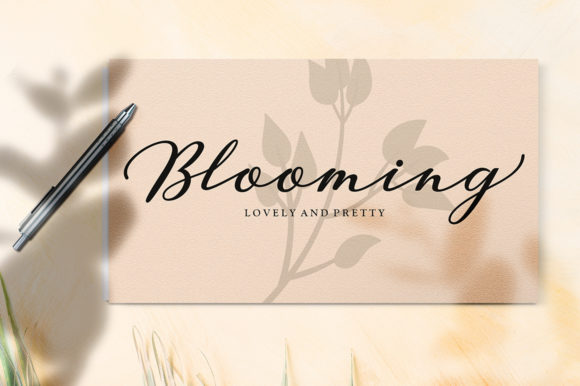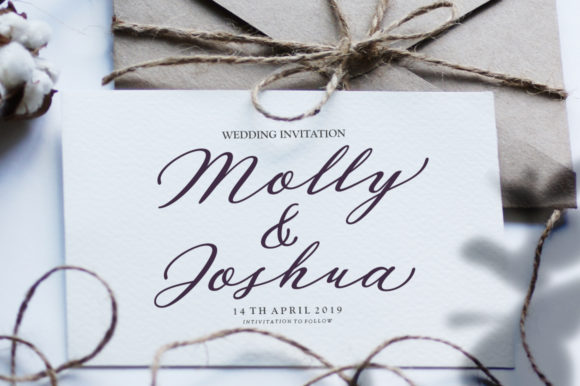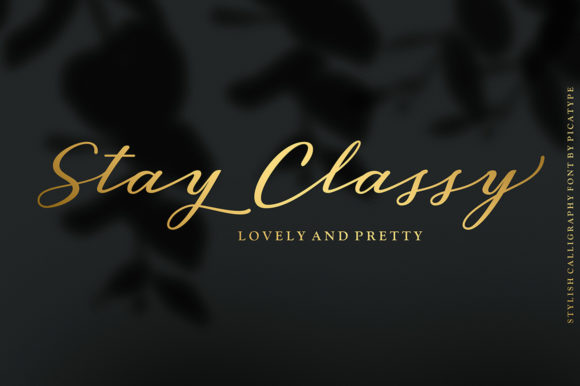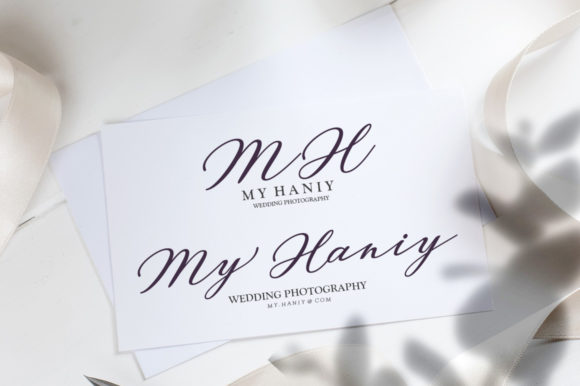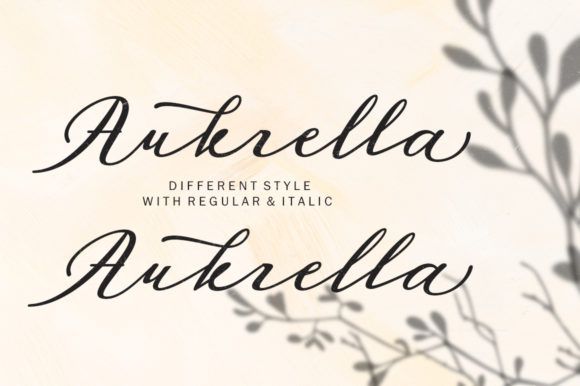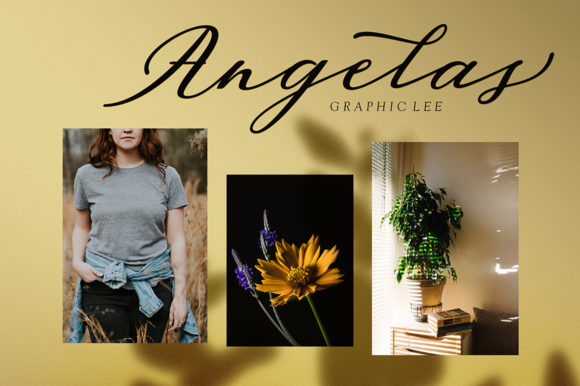
Introduction to Klibers Font
Have you ever stumbled upon a design element that immediately sparks creativity and makes you envision a stunning visual masterpiece? That’s exactly what happens when you discover the Klibers Font – a modern calligraphy font that exudes elegance and sophistication. Its unique charm is impossible to resist, and it’s the perfect addition to any creative project.
As a designer, you’re constantly on the lookout for high-quality design resources that can elevate your work and make it stand out. The Klibers Font is an excellent choice, offering a smooth and classic touch that’s perfect for a wide range of applications. From creating beautiful invitations to crafting unique logos, this font is an invaluable asset in your design toolkit.
Key Features of Klibers Font
- Unique, hand-drawn design style making it perfect for creative projects.
- High-quality design resource ideal for designers and artists looking for a distinctive font.
Honest Review: Klibers Font
As a designer, I’m always on the lookout for high-quality fonts to elevate my creative projects. Recently, I stumbled upon Klibers Font, and I’m excited to share my honest review.
What works well: ✨ The Klibers Font is incredibly versatile and comes in a range of styles, making it perfect for various design applications. Its high quality is evident, with smooth lines and crisp typography that’s sure to impress. I particularly love its ability to work seamlessly with a transparent background, which is a game-changer for modern design projects.
What could improve: ⚠️ While the font is generally well-suited for a wide range of creative projects, I did notice some limitations when it comes to very large font sizes. In these cases, the font may become slightly pixelated, which can be a bit distracting. Additionally, the free download option is limited to a few styles, so be prepared to upgrade if you need more extensive options.
Overall impression: Klibers Font is a solid addition to any designer’s toolkit. Its high quality, versatility, and free download option make it an excellent resource for design projects of all kinds.
- Perfect for creative projects requiring high-quality typography
- Works well with transparent backgrounds
Klibers Font is perfect for creative projects that require a unique and high-quality font. Some common use cases include:
Tips for Getting the Most Out of Klibers Font
To get the most out of Klibers Font, try combining it with other design elements such as images and shapes to create a visually appealing design. You can also experiment with different font sizes and colors to achieve the desired effect.